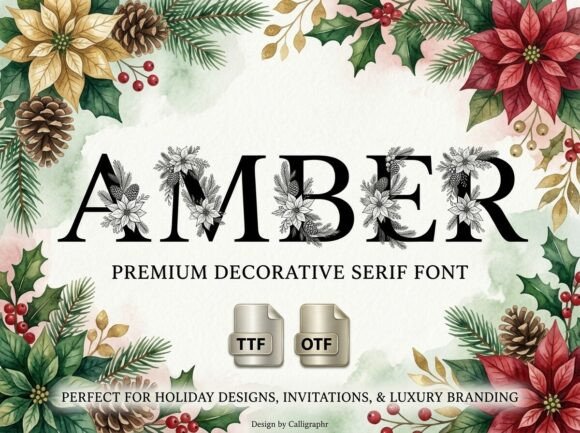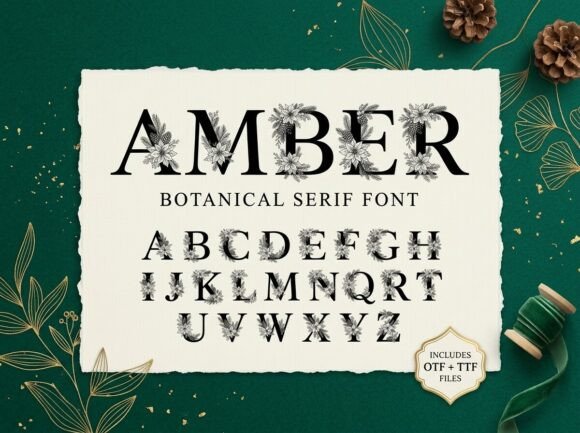
Introducing Amber Font: A Timeless Botanical Serif for Elegant Designs
Imagine a font that seamlessly blends classic typography with the organic beauty of nature. Look no further than Amber, a stunning botanical serif font that brings a touch of elegance and sophistication to any design project. With its unique combination of traditional serif structure and hand-drawn illustrations of natural elements, Amber is the perfect choice for designers and crafters seeking to add a sense of luxury and refinement to their work.
A Harmonious Blend of Classic Typography and Natural Artistry
Amber’s design is rooted in a deep understanding of traditional typography, with a high-contrast serif structure that exudes timelessness and sophistication. However, what truly sets Amber apart is its intricate integration with hand-drawn illustrations of natural elements, including pine branches, cones, and winter florals. Each character is meticulously entwined with these organic motifs, creating a beautiful and harmonious blend of classic typography and natural artistry.
Perfect for Seasonal and Nature-Inspired Designs
Amber’s unique design makes it an exceptional choice for a variety of design applications, particularly those that require a seasonal or nature-inspired aesthetic. For example, this font would be perfect for:
- Seasonal holiday branding, such as Christmas or winter-themed campaigns
- Artisanal product packaging, including labels and tags for natural food, craft beverages, or handmade products
- Boutique event stationery, such as wedding invitations, save-the-date cards, or event programs
- Nature-inspired editorial headers, including magazine articles, blog posts, or social media graphics
Adding Handcrafted Prestige and Botanical Elegance to Your Designs
Amber’s distinctive design ensures that every word looks handcrafted and luxurious, making it perfect for designers and crafters who want to add a touch of sophistication to their work. Whether you’re designing for a luxury forest retreat, a winter wedding suite, or a high-end product brand, Amber delivers a sense of prestige and elegance that is sure to impress.
Key Features of Amber Font
- High-contrast serif structure with a timeless, classic look
- Meticulously entwined with hand-drawn illustrations of natural elements, including pine branches, cones, and winter florals
- Perfect for seasonal and nature-inspired designs, including holiday branding, product packaging, event stationery, and editorial headers
- Exceptional for luxury and high-end design projects, including forest retreats, winter wedding suites, and artisanal product brands
- Handcrafted look and feel, perfect for adding a touch of sophistication and elegance to your designs
Tips for Using Amber Font in Your Designs
To get the most out of Amber font, here are a few tips to keep in mind:
- Use Amber as a display font to add emphasis and create visual interest in your designs
- Experiment with different colors and textures to enhance the natural, organic feel of the font
- Pair Amber with simpler fonts to create a striking contrast and add visual hierarchy to your designs
- Don’t be afraid to get creative and experiment with different design applications and uses for Amber
Amber font is a breathtaking botanical serif font that brings a unique and elegant touch to any design project. With its harmonious blend of classic typography and natural artistry, Amber is the perfect choice for designers and crafters seeking to add a sense of luxury and refinement to their work. Whether you’re designing for a seasonal or nature-inspired theme, or simply looking to add a touch of sophistication to your designs, Amber is an exceptional choice that is sure to impress.